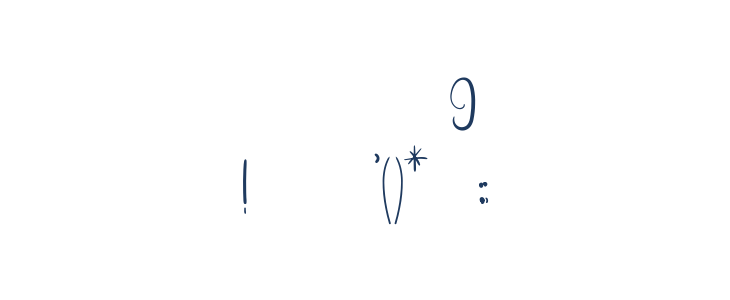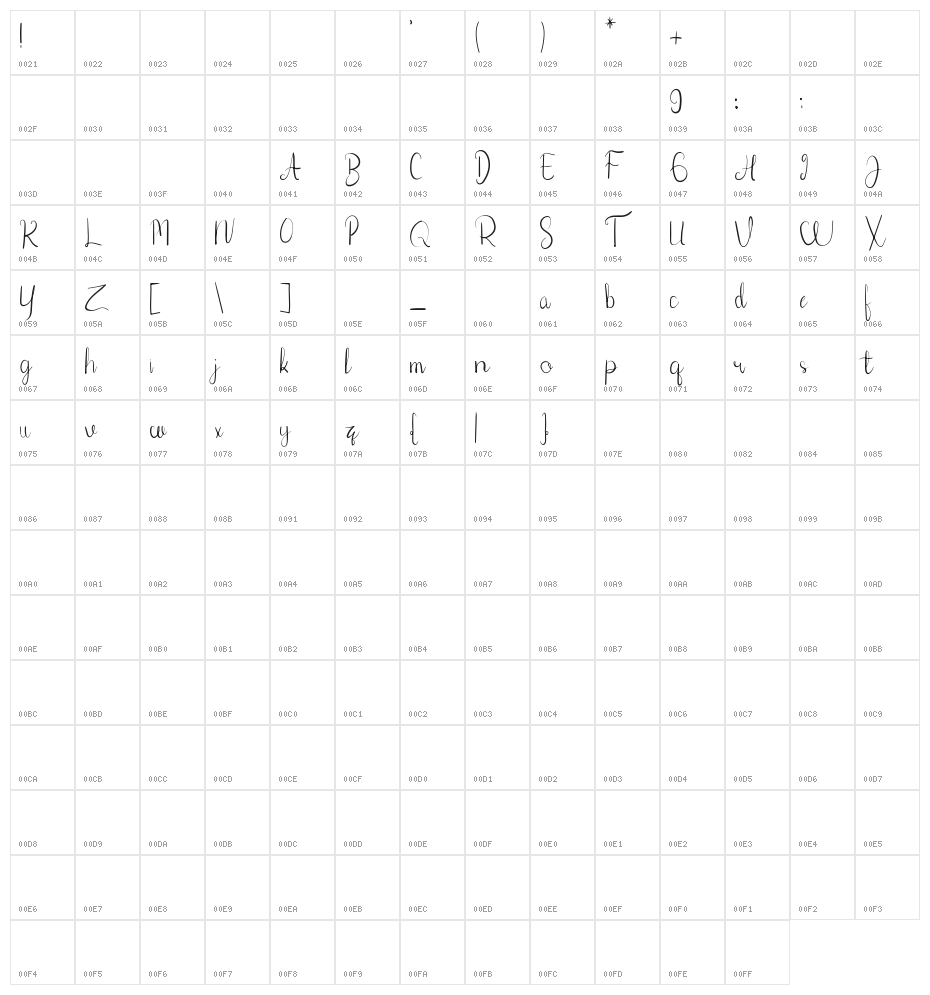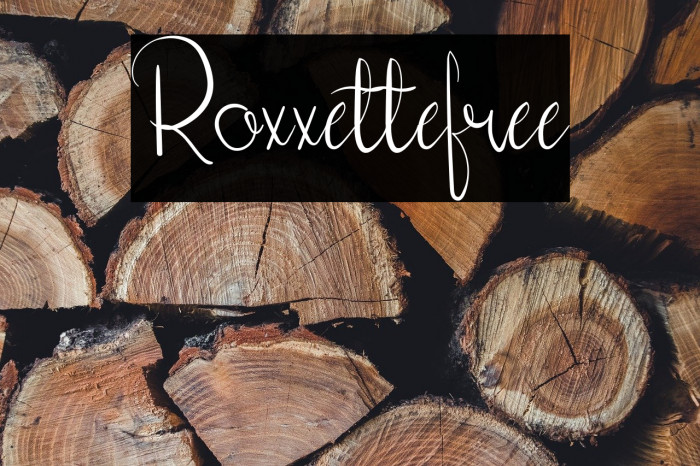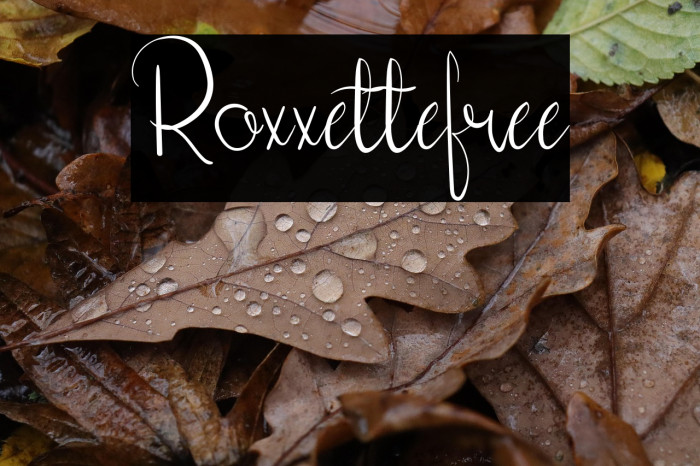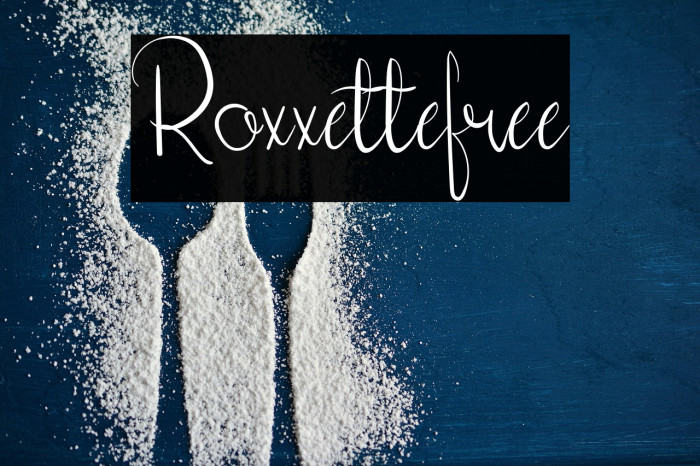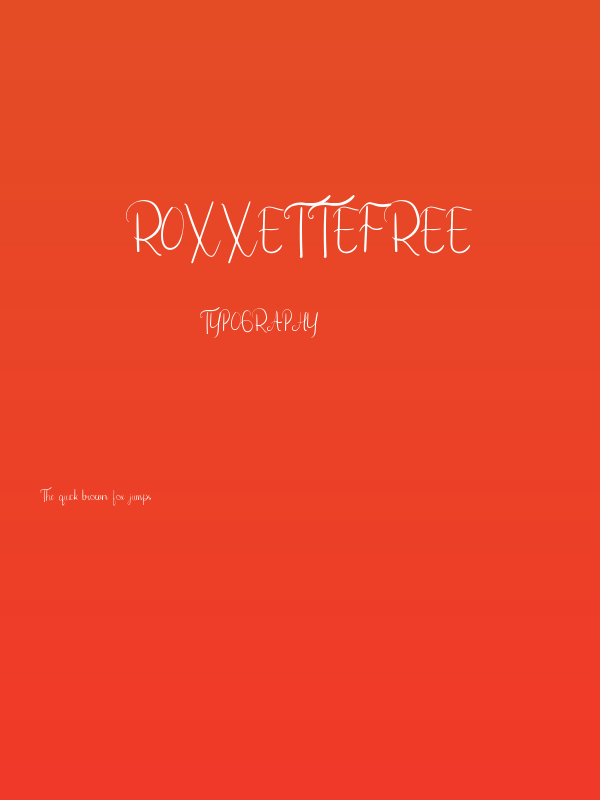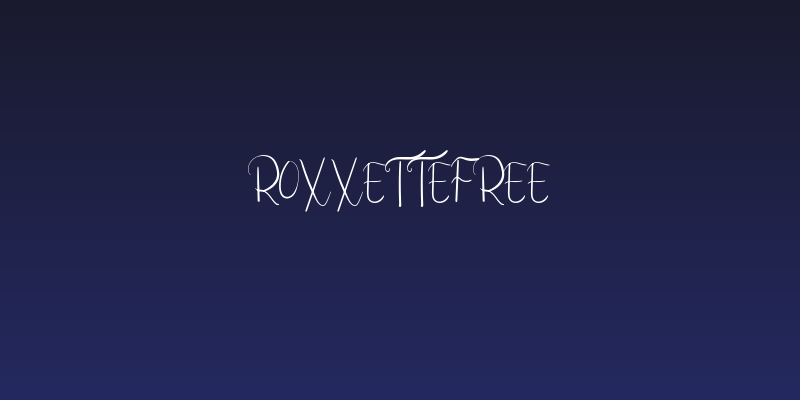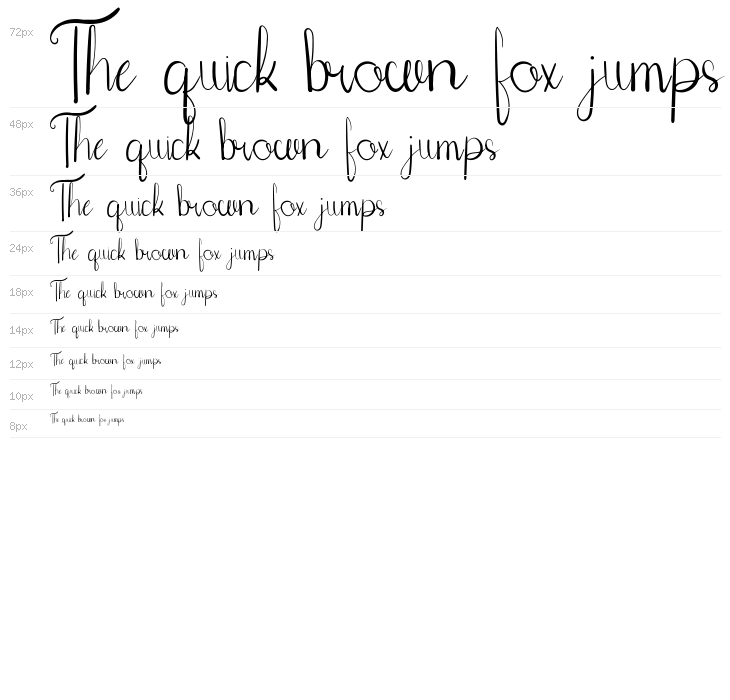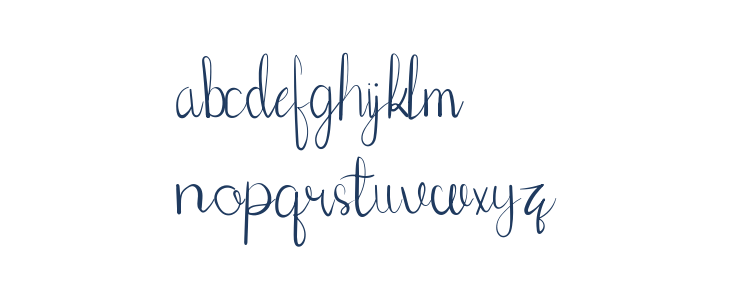
Roxxettefree Font
Roxxettefree Description
This font features an elegant and flowing script style, characterized by its smooth, cursive lines and artistic flair. The uppercase letters exhibit a graceful, sweeping motion with varying stroke widths that add a dynamic and sophisticated touch. The lowercase letters maintain a consistent fluidity, enhancing readability while preserving the decorative nature of the script. The numerals and special characters complement the alphabet with similar stylistic elements, ensuring a cohesive appearance across all text. This font is ideal for projects that require a touch of elegance and creativity, such as invitations, branding, and decorative headings.